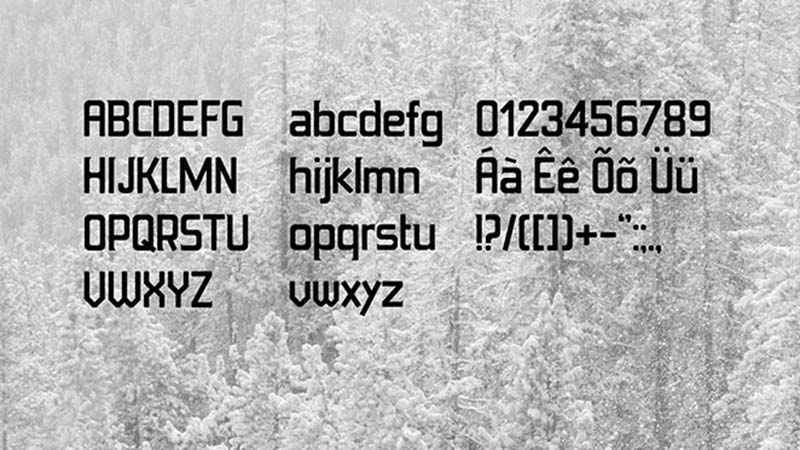
Meet the Foxy Font! This bold display typeface was designed by Inari Jardani Fraton and released in 2017.
This font is crafted with thick strokes and this also uses rounded sans serif corners and that styling works fine with allura font. The designer added sharp corners in some of the characters of this typeface.